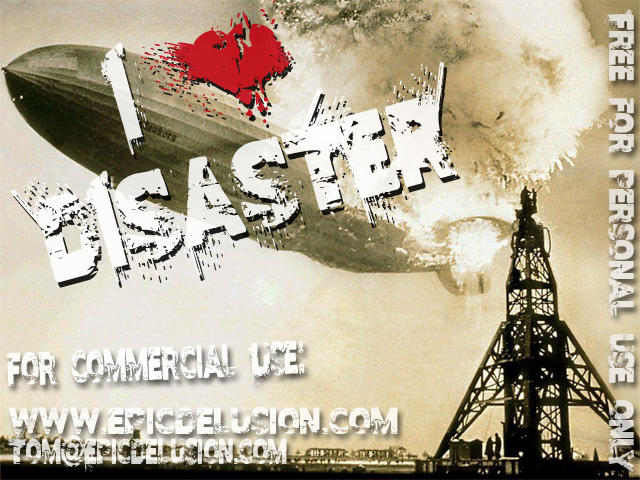
Preview and download I Love Disaster Font. Created by Epic Delusion in Fancy Destroy styles with Free for personal use license.
This is a cool font. Upper Case is ultra distressed, lower case is a cleaner distress. Very easy to use. For Commercial Use: http://www.epicdelusion.com/fonts-s/1873.htm |